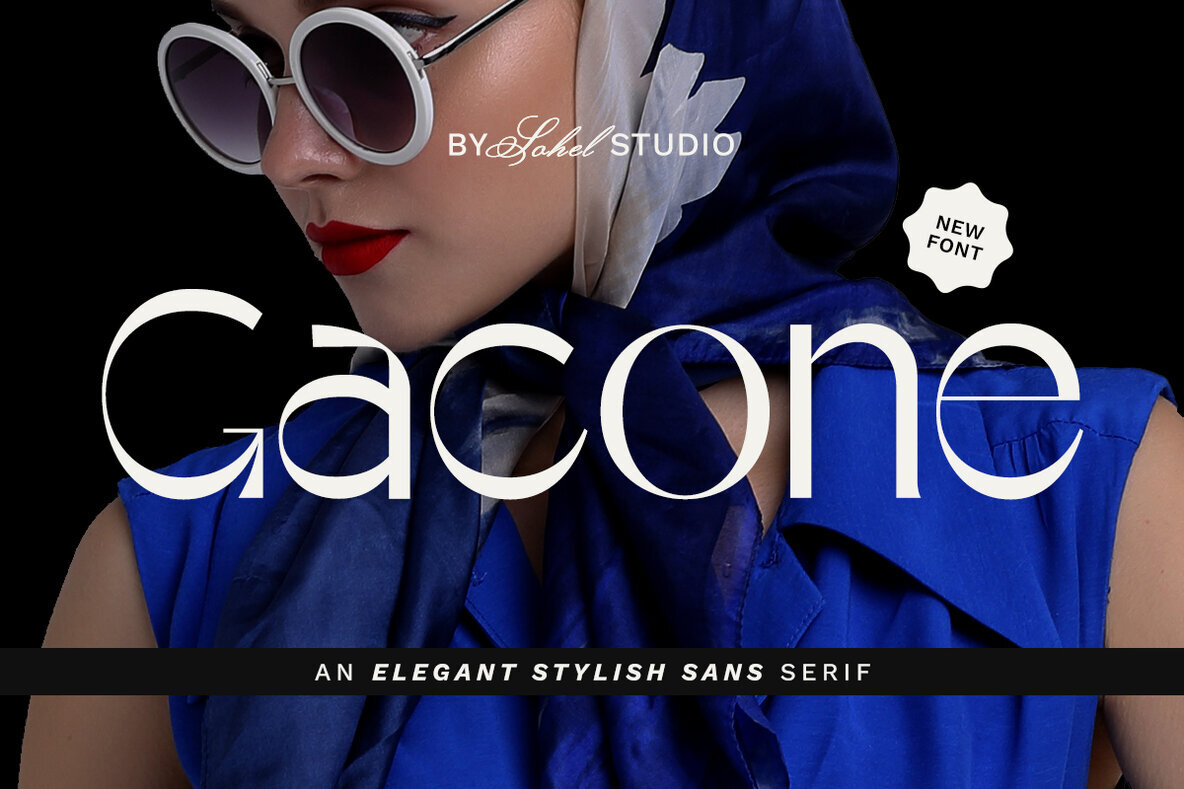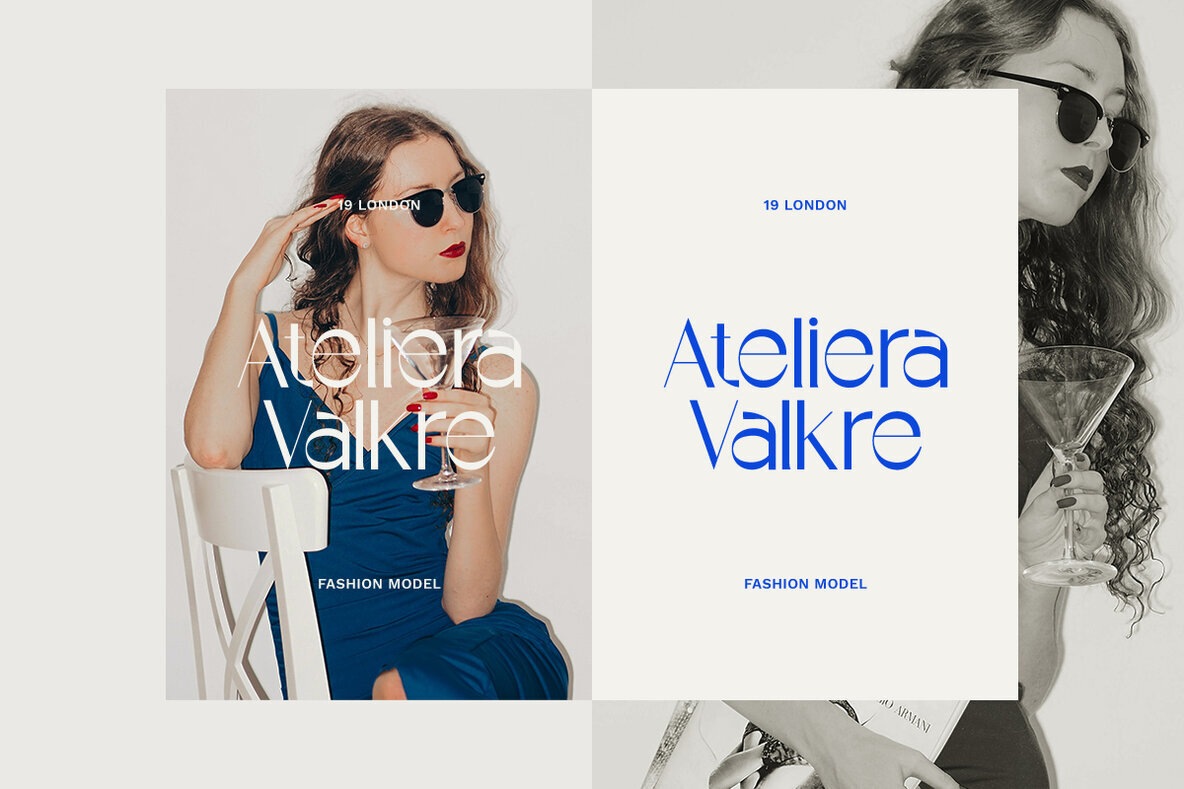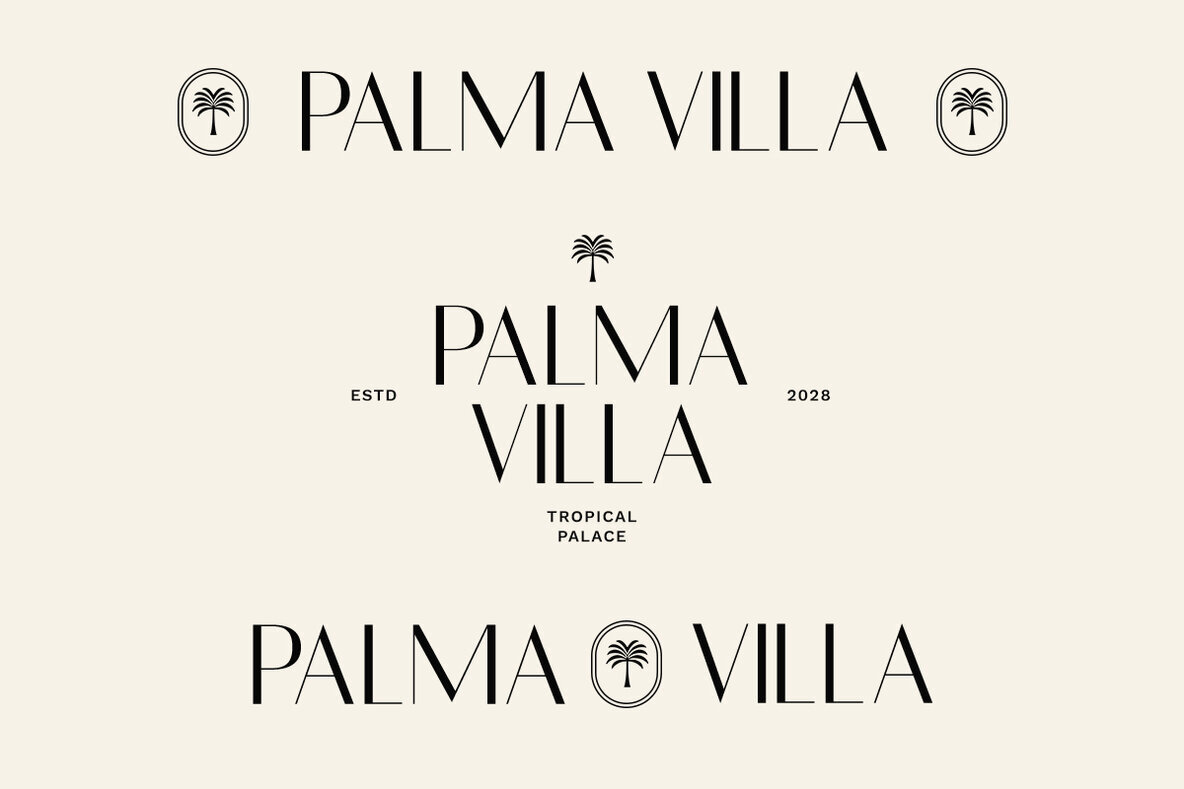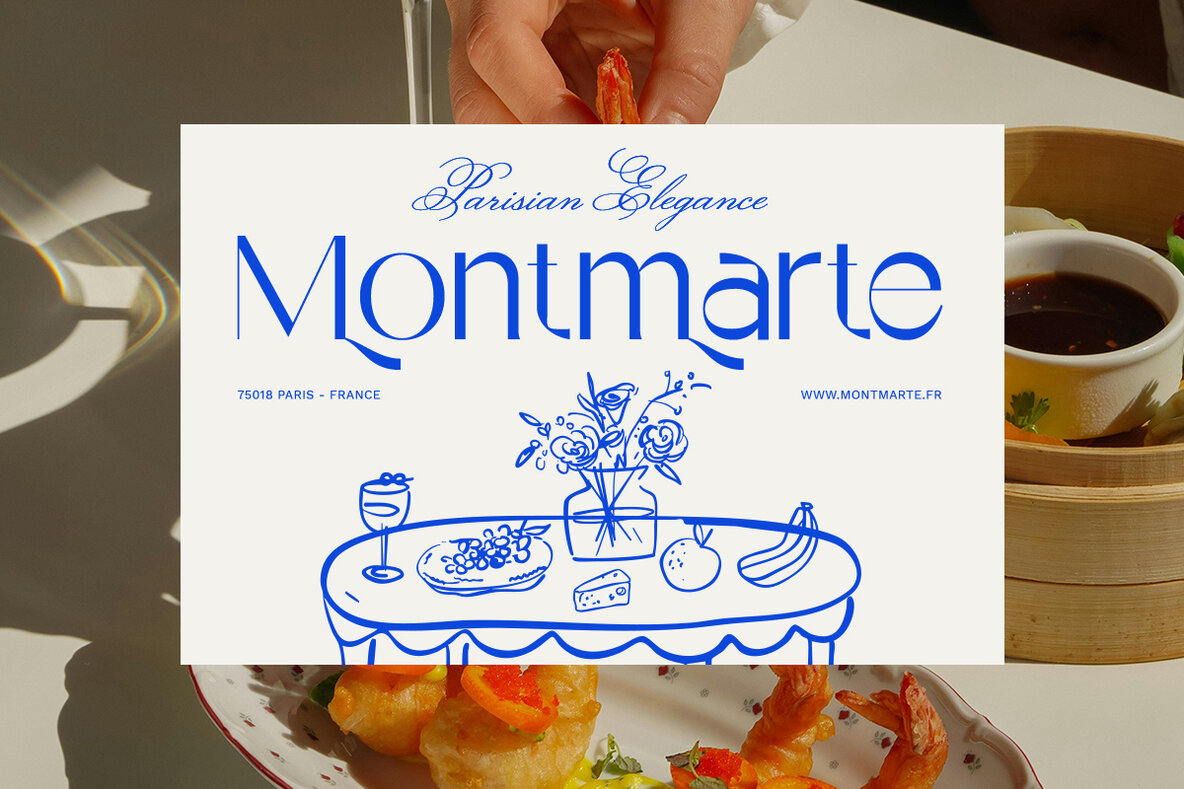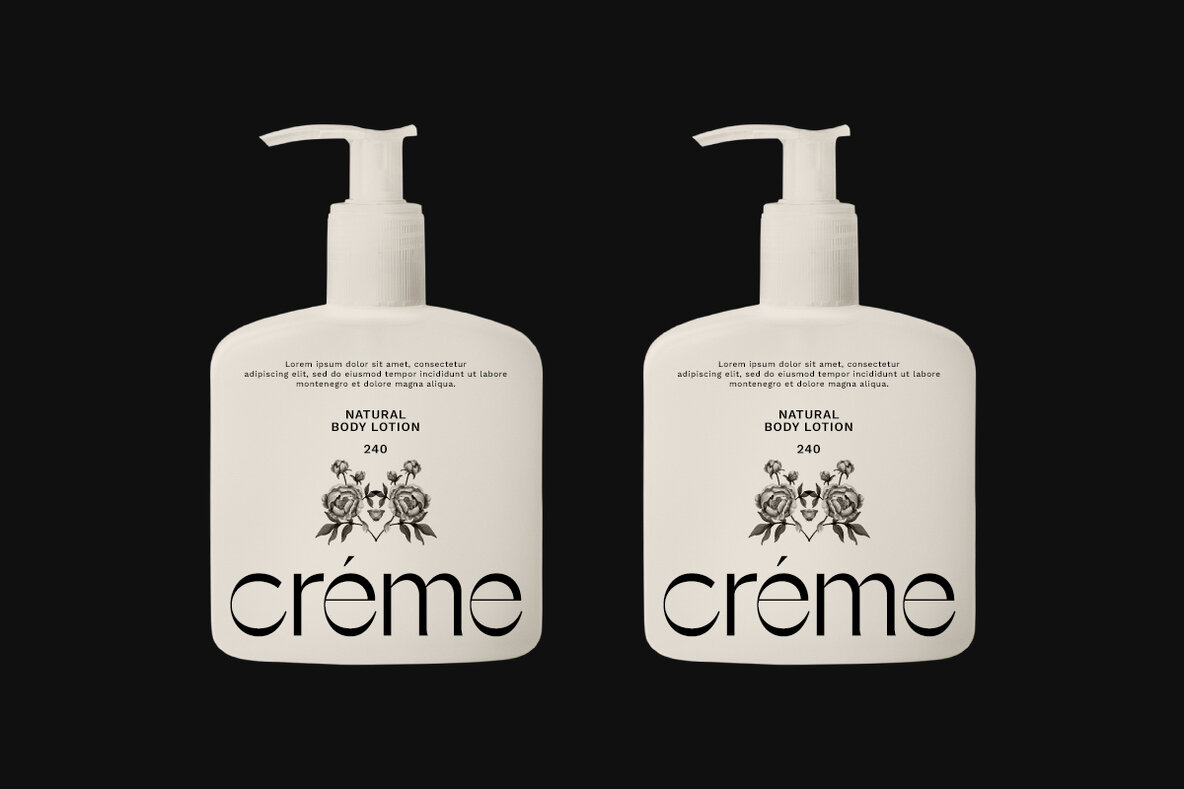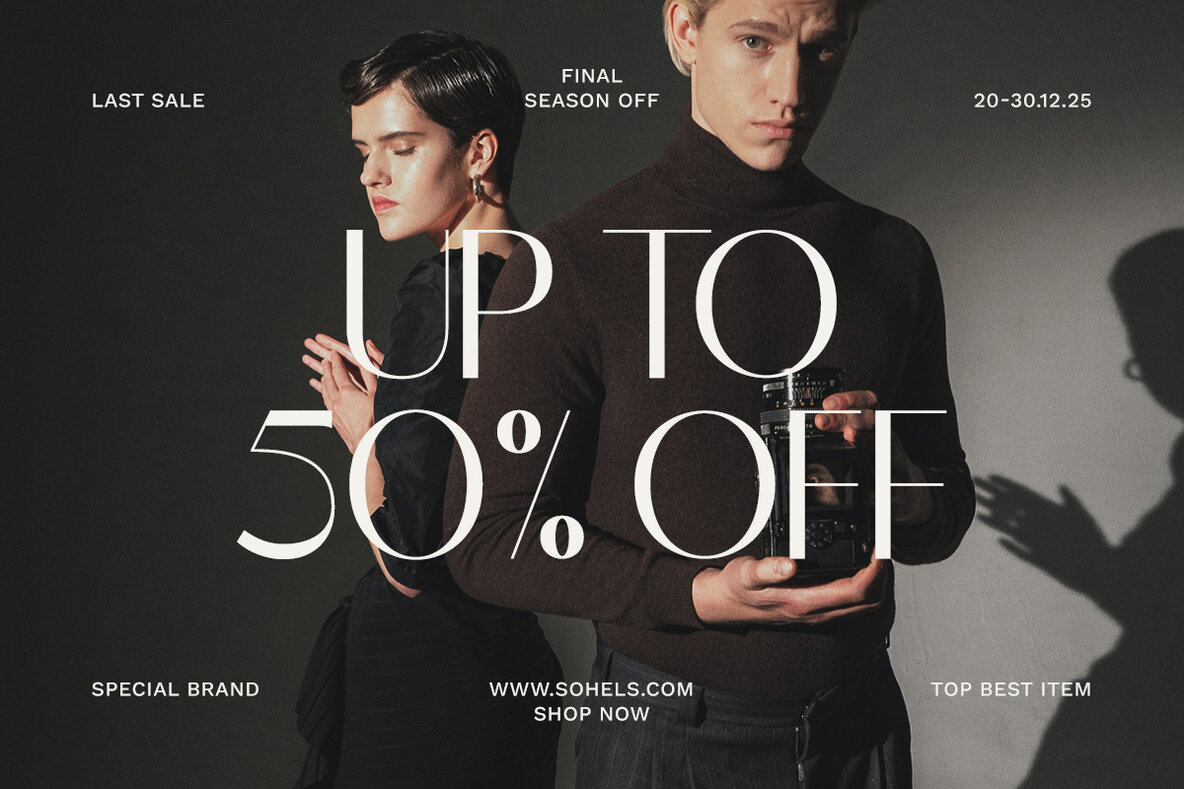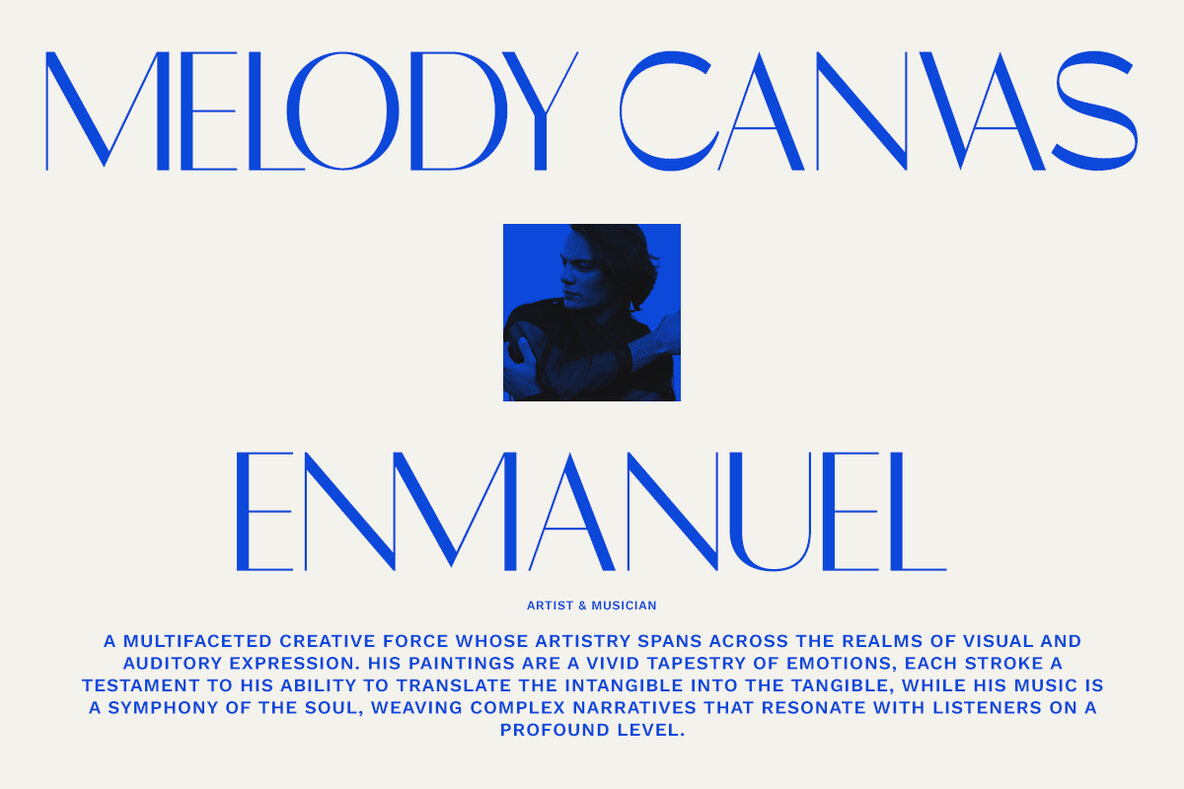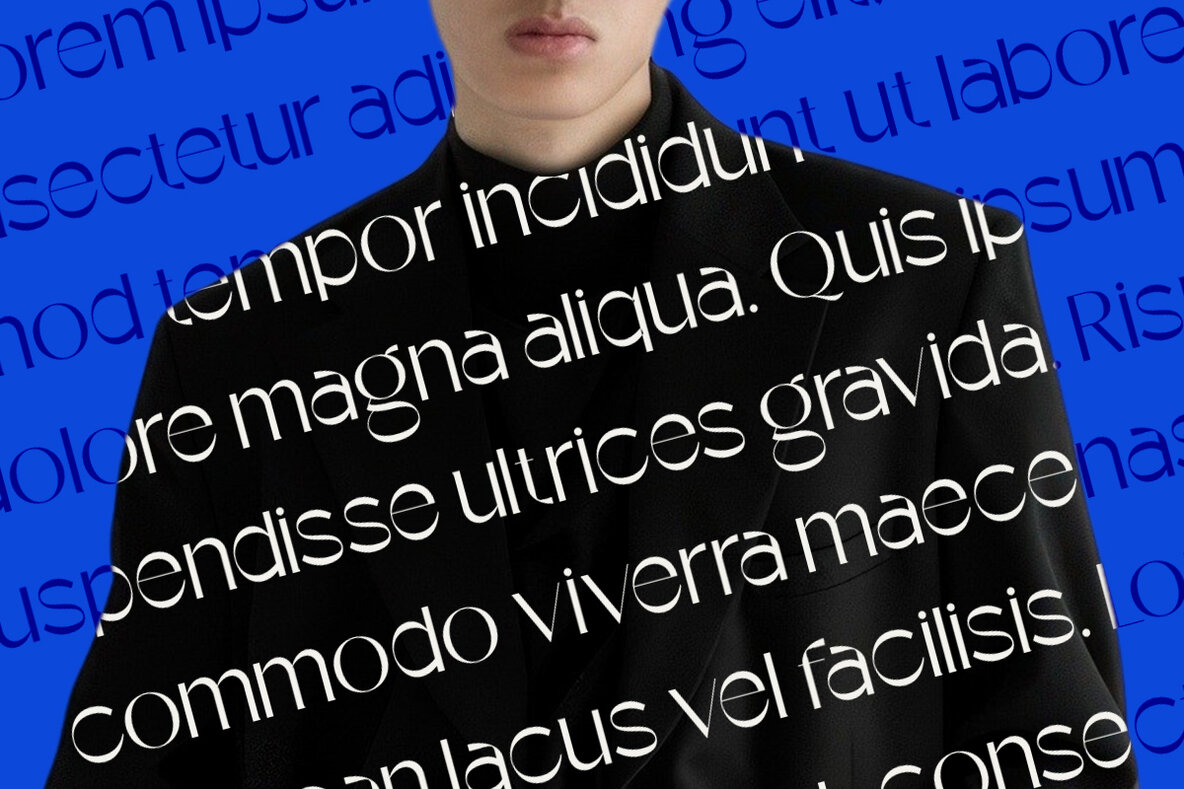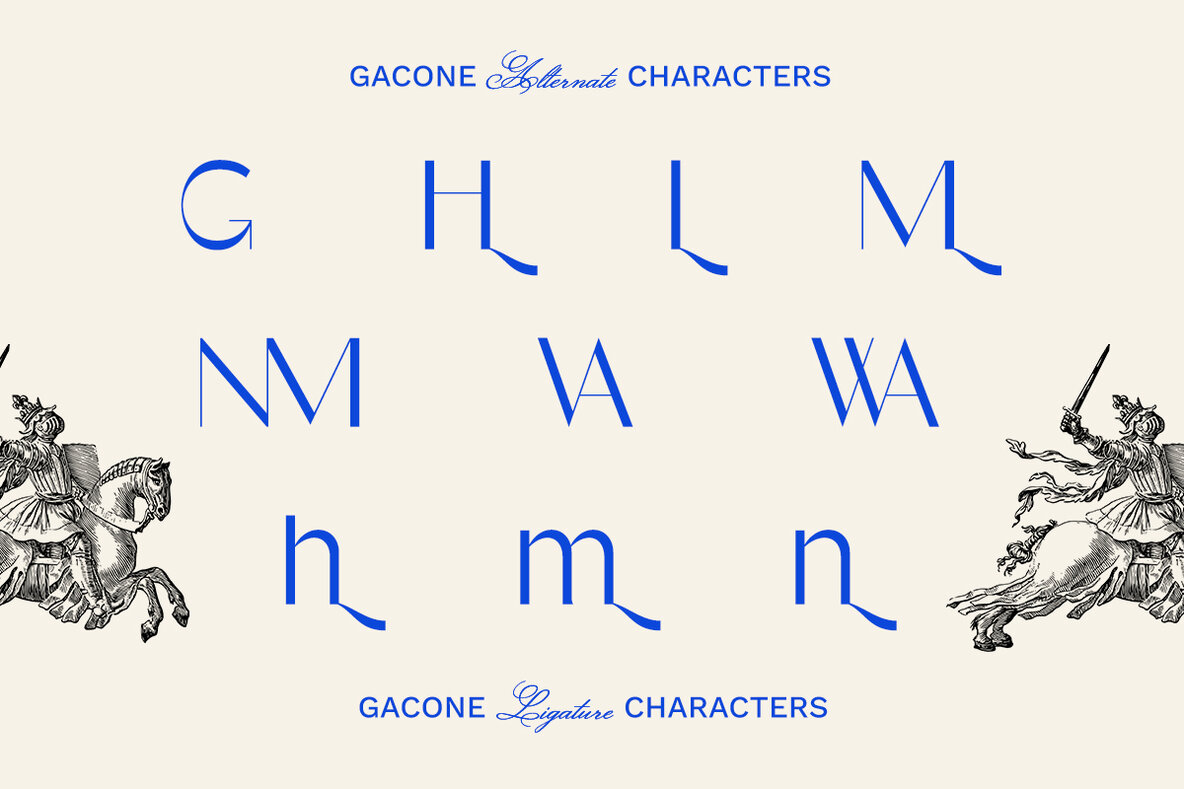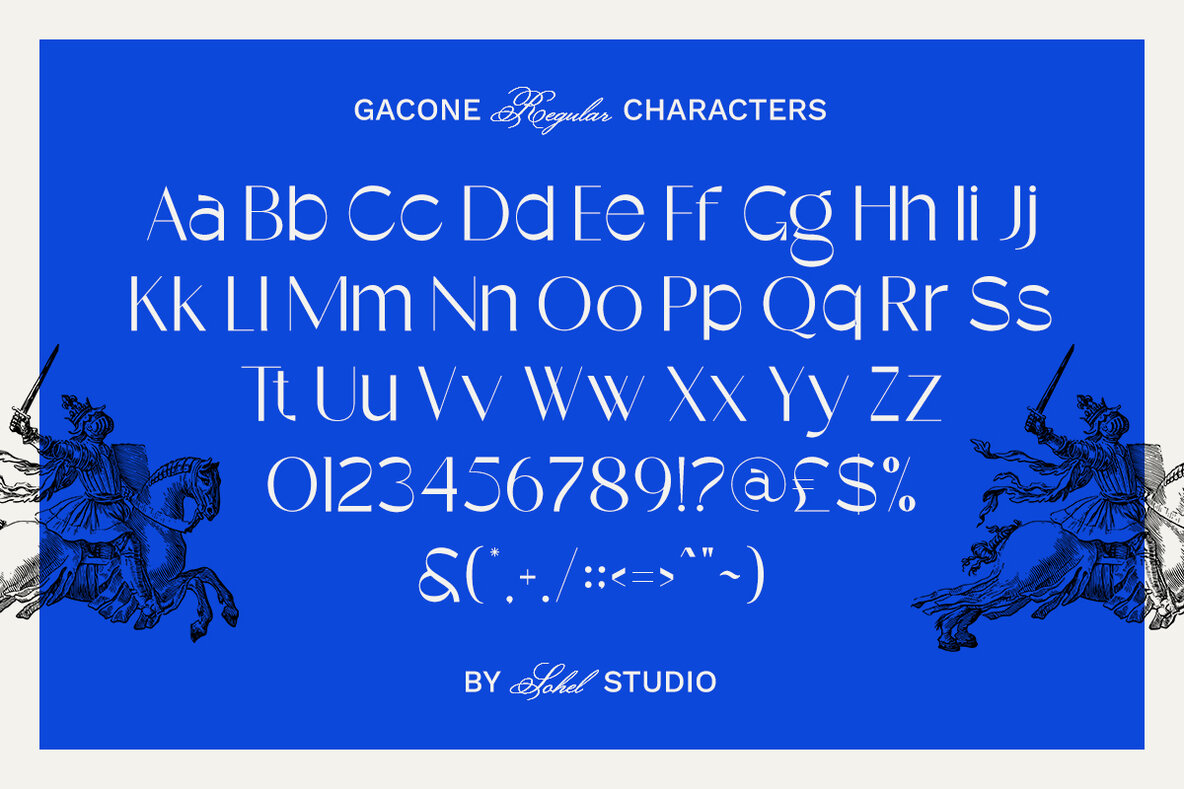
Gacone redefines typographic expression with its precision-cut forms, poised for brands, designers, and art directors who eschew the commonplace. This typeface marries sharp geometry, luxurious minimalism, and expressive curves, offering a futuristic yet refined character. Its distinctive shapes, notably in the G, a, and e, make a statement, transforming names into logos and headlines into visual anchors. Gacone thrives in high-contrast settings, with its bold typographic presence ideal for fashion campaigns, product design, and modern expressions. Whether it's all-caps for impactful layouts or sentence case for elegant compositions, this font is the typographic embodiment of confident design. Gacone is more than a font—it's an attitude, offering designers a voice that stands out where others remain conventional. Let your message be enveloped in the distinction Gacone provides, enabling every letter to convey clarity and confidence.Gacone: A Distinctive Sans Serif Type System